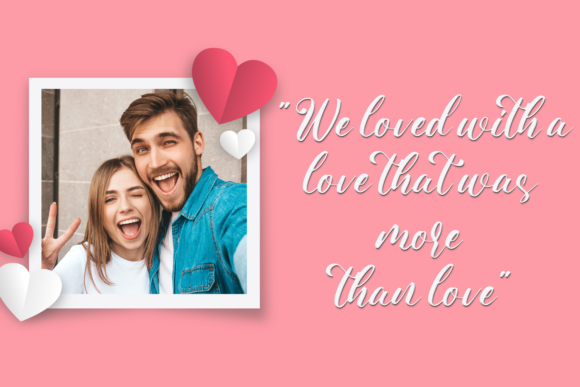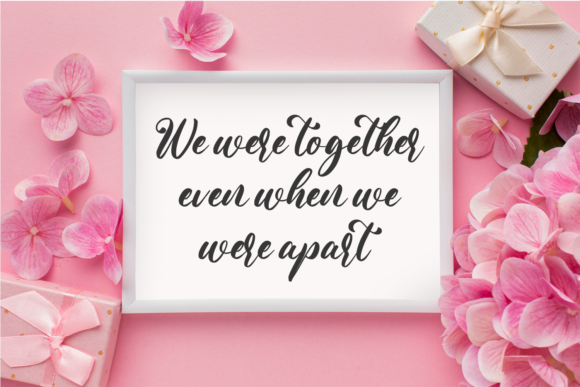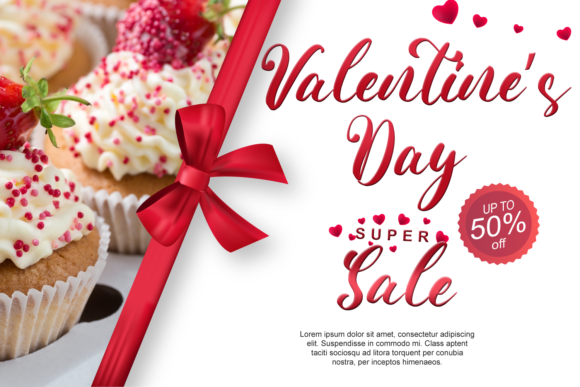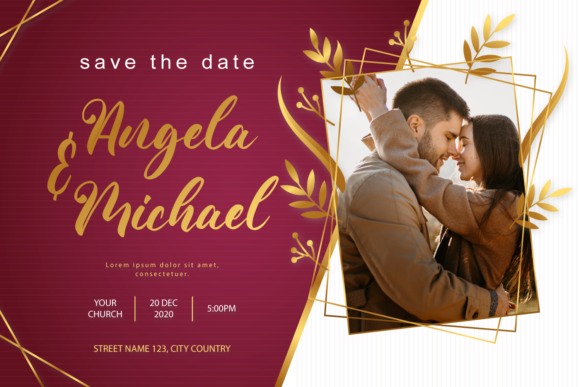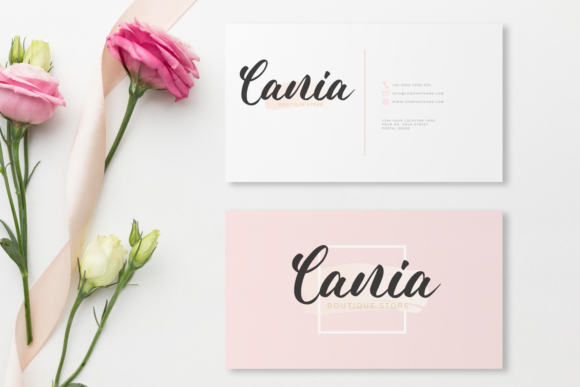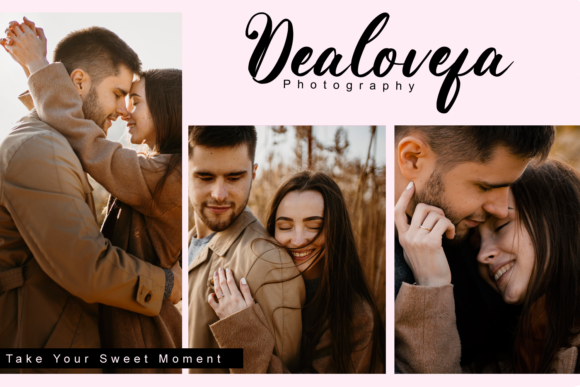
Introducing Beauty Valentina Font: The Perfect Blend of Minimalism and Elegance
Are you a designer or crafter looking for a font that exudes elegance and sophistication? Look no further than Beauty Valentina Font. This stunning script font is a perfect blend of minimalism and beauty, making it an ideal choice for a wide range of design projects. In this article, we’ll take a closer look at the features and benefits of Beauty Valentina Font and explore how it can elevate your designs.
A Minimalist yet Beautiful Script Font
Beauty Valentina Font is a minimalist and beautiful script font that boasts a casual charm, making it appear wonderfully down-to-earth, readable, and versatile. Its clean lines and simple design make it an excellent choice for designers who want to add a touch of elegance to their work without overwhelming the senses. Whether you’re creating a logo, branding materials, or social media graphics, Beauty Valentina Font is sure to impress.
Readability and Versatility
One of the standout features of Beauty Valentina Font is its exceptional readability. The font’s casual charm and simple design make it easy to read, even in smaller sizes. This means you can use it in a variety of contexts, from body text to headlines, without worrying about it becoming illegible. Additionally, Beauty Valentina Font is incredibly versatile, making it suitable for a wide range of design projects, from elegant wedding invitations to modern business branding.
Perfect for Busy Backgrounds and Standalone Headlines
Beauty Valentina Font is designed to shine in any context, whether it’s being used on busy backgrounds or as a standalone headline. Its bold yet elegant design ensures that it will stand out, even on complex backgrounds, making it perfect for designers who want to create visually striking graphics. As a standalone headline, Beauty Valentina Font is sure to make a statement, drawing the viewer’s attention and adding a touch of sophistication to your design.
So, what are the benefits of using Beauty Valentina Font for designers and crafters? Here are just a few:
- Elegance and sophistication: Beauty Valentina Font adds a touch of elegance and sophistication to any design project, making it perfect for high-end branding and luxury goods.
- Readability: The font’s exceptional readability makes it suitable for body text, headlines, and other design elements.
- Versatility: Beauty Valentina Font is incredibly versatile, making it suitable for a wide range of design projects, from wedding invitations to business branding.
How to Use Beauty Valentina Font in Your Designs
Using Beauty Valentina Font in your designs is easy. Here are a few tips to get you started:
- Pair it with bold colors: Beauty Valentina Font looks stunning when paired with bold, bright colors. Try pairing it with a bold red or blue to create a striking contrast.
- Use it as a headline: Beauty Valentina Font makes an excellent headline font, adding a touch of elegance and sophistication to your design.
- Experiment with different sizes: Don’t be afraid to experiment with different sizes and styles to find the perfect look for your design.